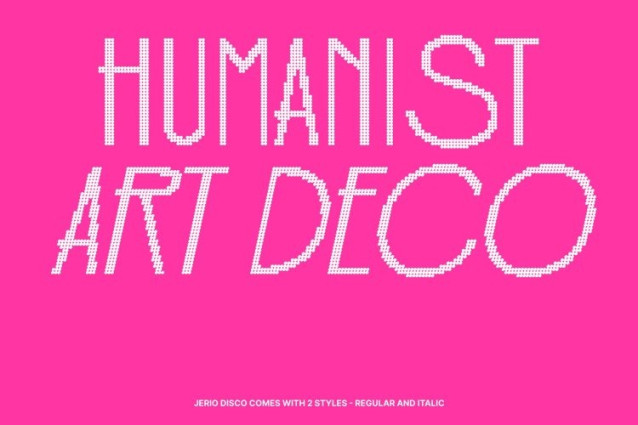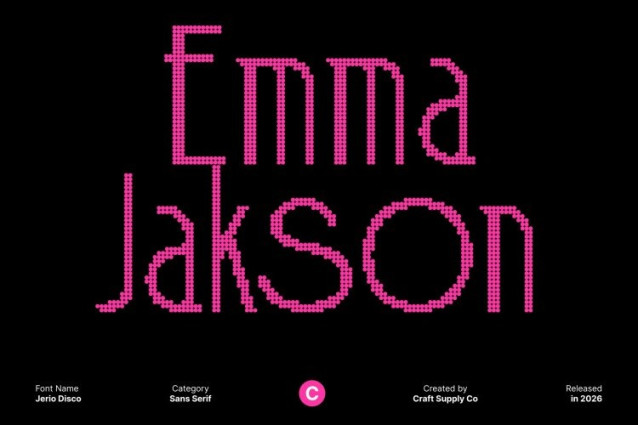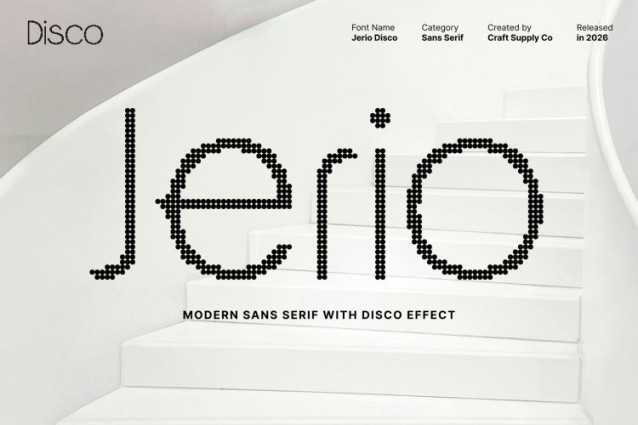
Jerio Disco Font
Jerio Disco Font This is a modern sans serif font crafted for professional environments, elevated with a refined disco-inspired character. Its clean structure and contemporary proportions create a polished, confident appearance, while subtle rhythmic details introduce energy and visual interest like controlled motion under soft studio lights.
Versatile, Stylish, and Contemporary
Designed for flexibility, performs beautifully across headlines, body text, branding, and digital interfaces. Its modern aesthetic delivers sophistication and clarity, while the disco influence adds a fresh, lively touch that keeps designs from feeling static or ordinary.
Clear Readability with Confident Presence
This font prioritizes readability through balanced letterforms and precise spacing. It remains clear and comfortable to read in both print and digital formats, even at smaller sizes. This makes it ideal for professional communication that still wants to feel dynamic and current.
Perfect for Modern Professional and Creative Use
Ideal for corporate branding, creative studios, editorial layouts, presentations, and modern marketing materials, bridges professionalism and expressive energy. It delivers a timeless, up-to-date look with a subtle celebratory vibe perfect for designs that want to look smart, stylish, and alive.